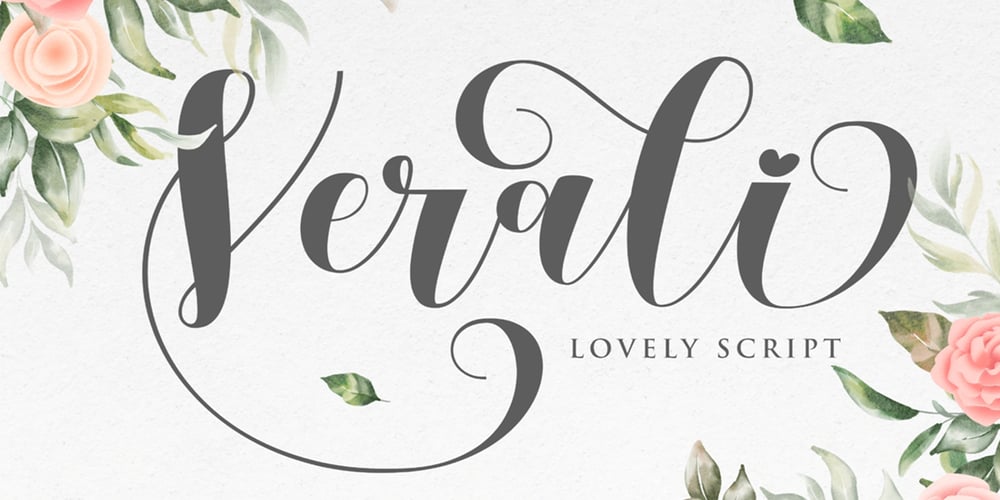
Verali Font Family was designed by Gumilar Pratama Adiatna and published by Gilar Studio. Verali contains 1 styles and family package options. This font is a feminine modern handwritten font is made in a modern style with a very beautiful beginning and ending, elegantly, very casual and suitable for your various design needs.carefully handcrafted to become a true favorite. Its casual charm makes it appear wonderfully down-to-earth, readable and, ultimately, incredibly versatile. Verali will look outstanding in any context, whether it’s being used on busy backgrounds or as a standalone headline!I’ts Perfect for logo, branding, tittle, social media posts, advertisements, product packaging, product designs, label, photography, watermark, special event, magazine, web design, etc.Features :Uppercase & LowercaseNumerals & Punctuations (OpenType Standard)Accents/Multilingual charactersbeginning and ending swash (ss01-ss03)beautiful ligaturePUA EncodedTo access all OpenType Stylistic alternates, you need a program that supports OpenType features such as Adobe Illustrator, Adobe Photoshop, CorelDraw and Microsoft word.The font has PUA Unicode (Private Use Areas – font specific code), so that all the alternative characters (with flourishes and swirly lines) can be easily accessed in full through Windows and Mac and you can loadthem into applications such as Cricut Design Space and Silhouette Studio.Check my other Font here : https://gilarstudio.com/Gilar Studio